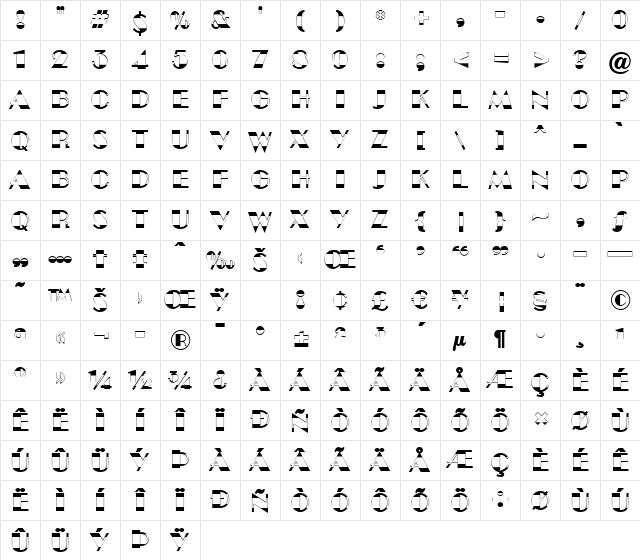
a_BentoB&W Regular
Designer: W.Chufarofsky & M.Slutsker)
Design Context for a_BentoB&W
a_BentoB&W is a composed and adaptable typeface that performs quietly and consistently across a wide range of design contexts.